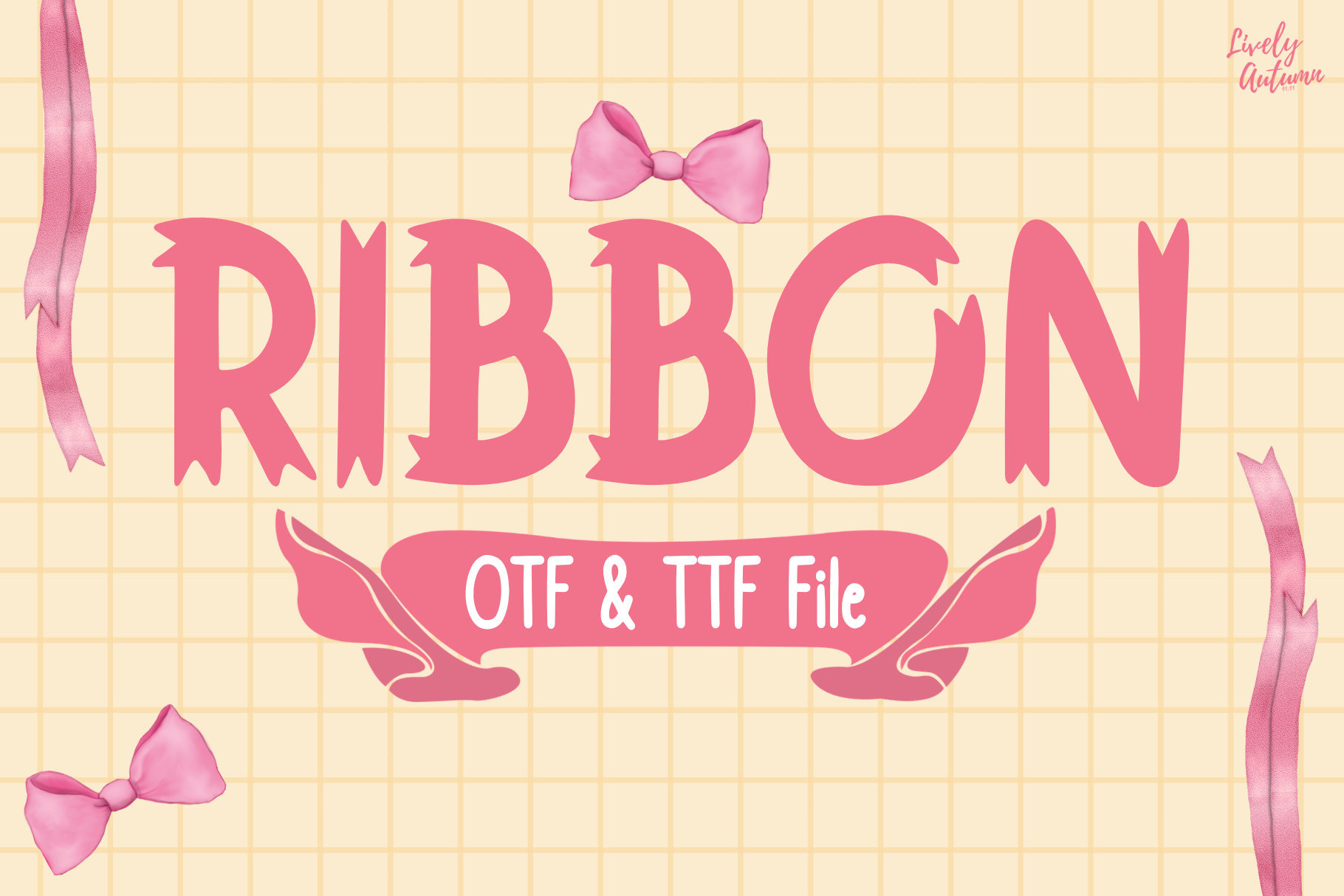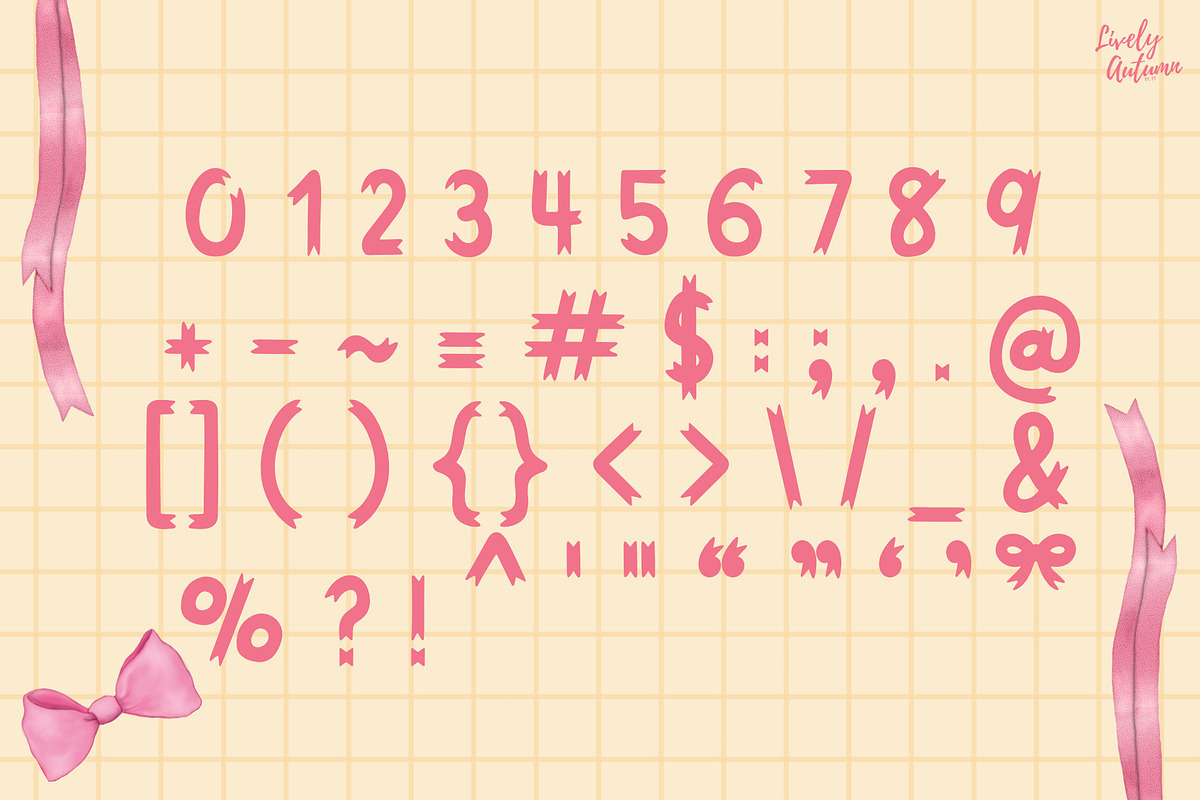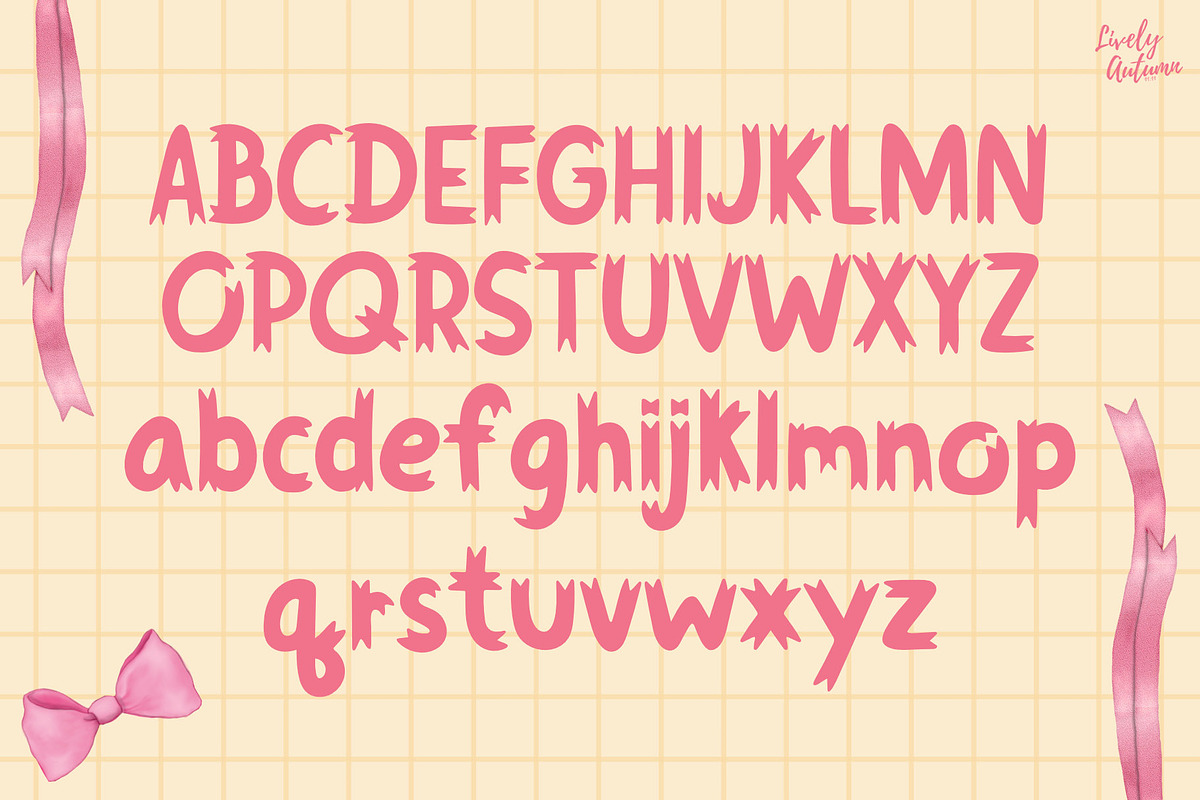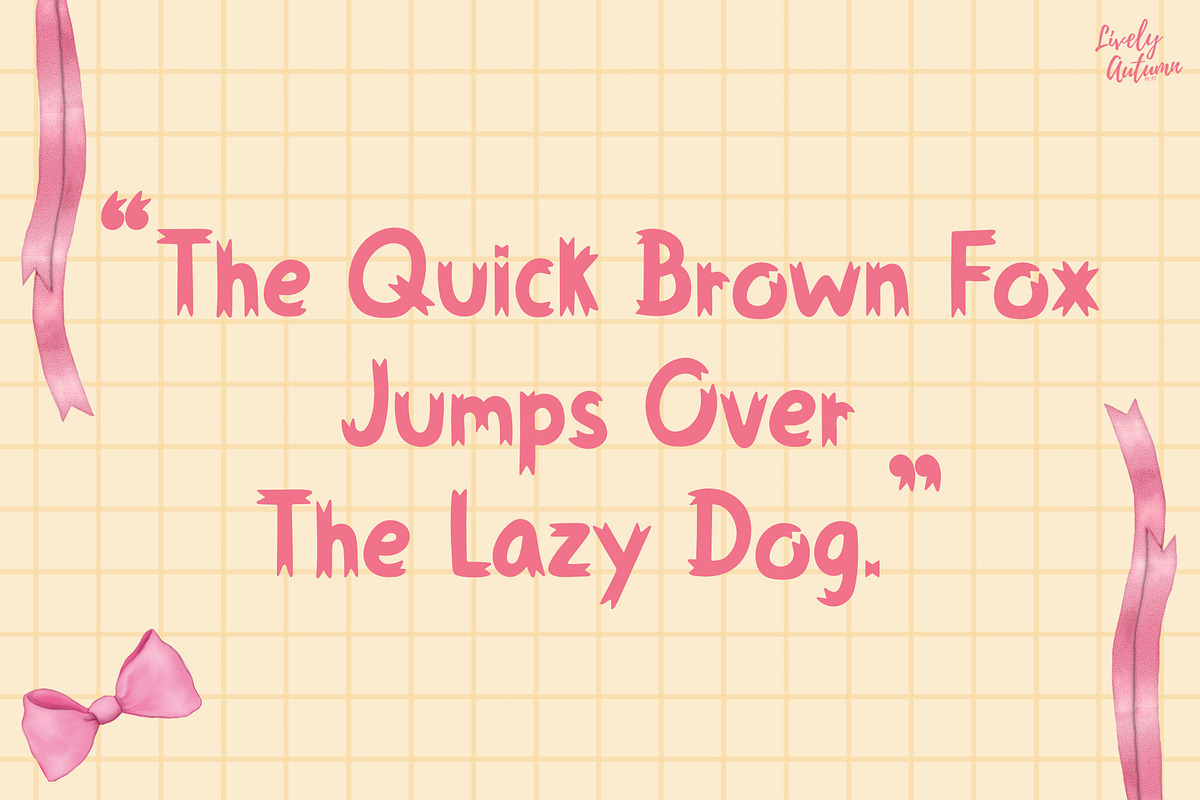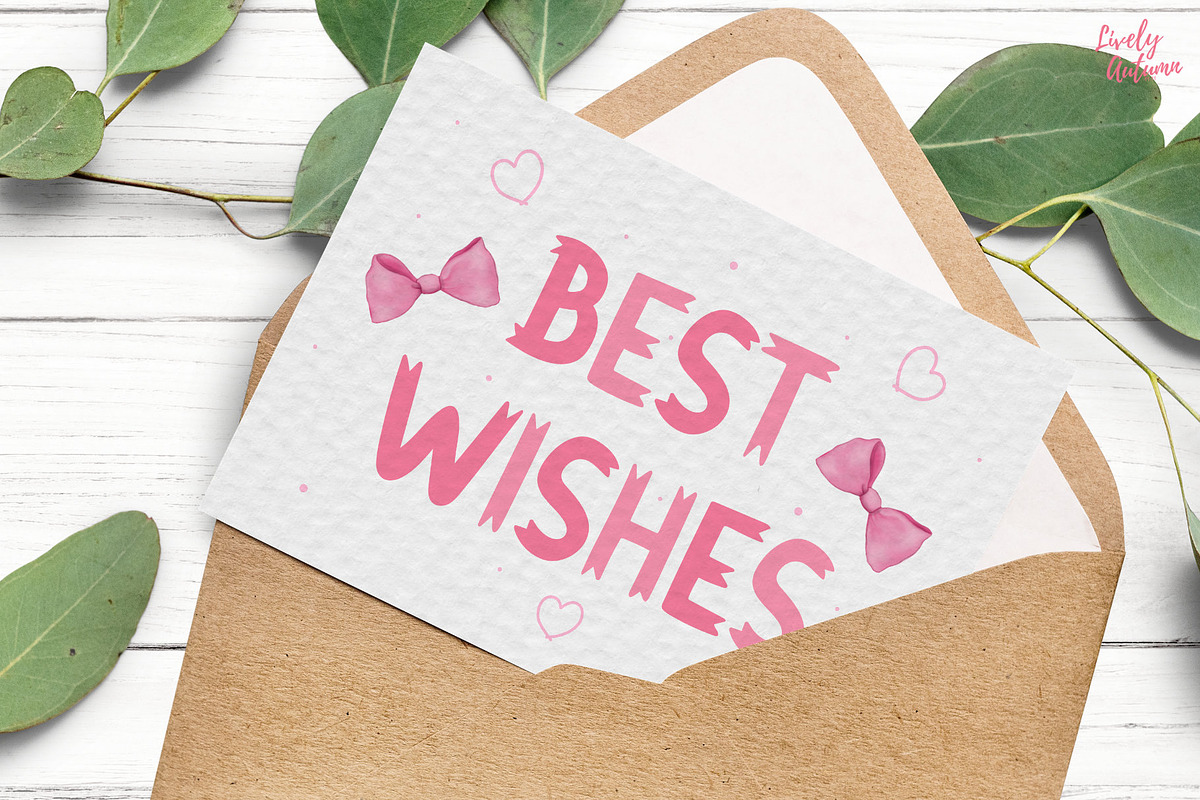
Ribbon | Sans serif font
Ribbon Font is a sans serif display font. Perfect for your personal projects, and various projects. From invitations to posters, social media graphics, journals, and much more.